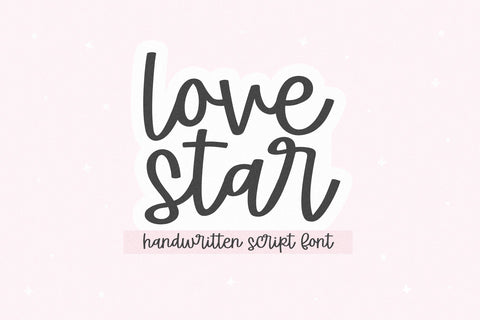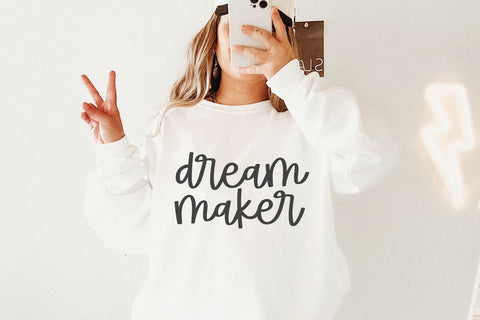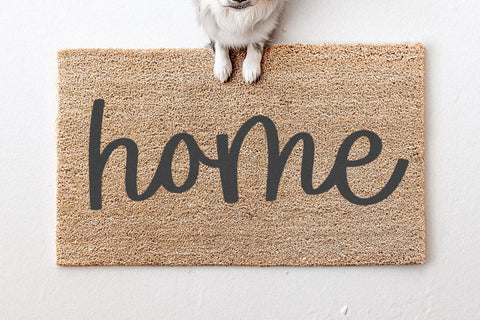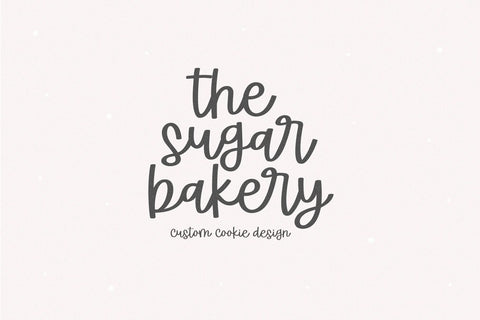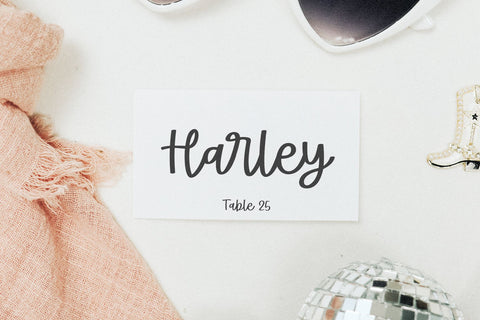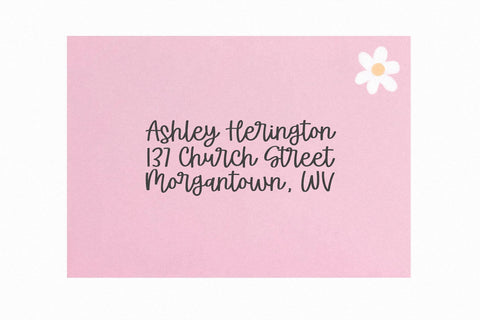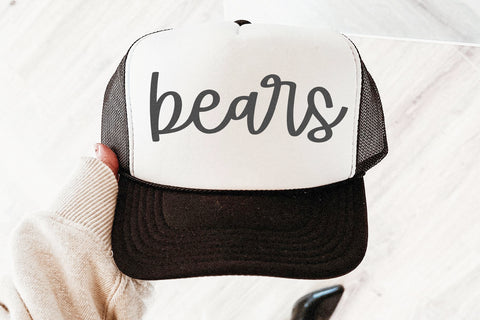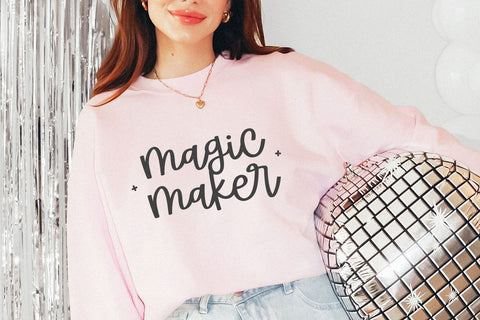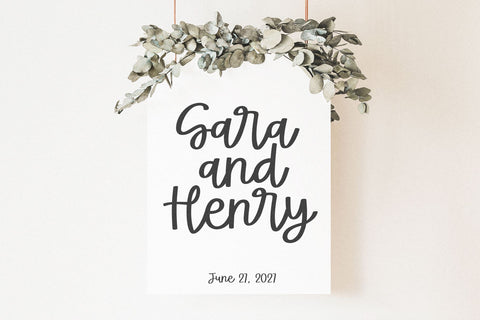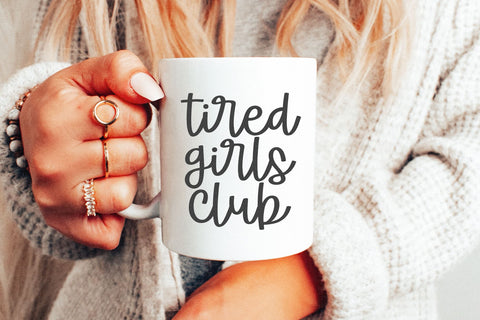
Lovestar - Cute Script Font
LoveStar is a handwritten script font.
This font is perfect for logos, branding, farmhouse designs, cricut projects, svg files, canva, goodnotes, stickers, mugs and more!